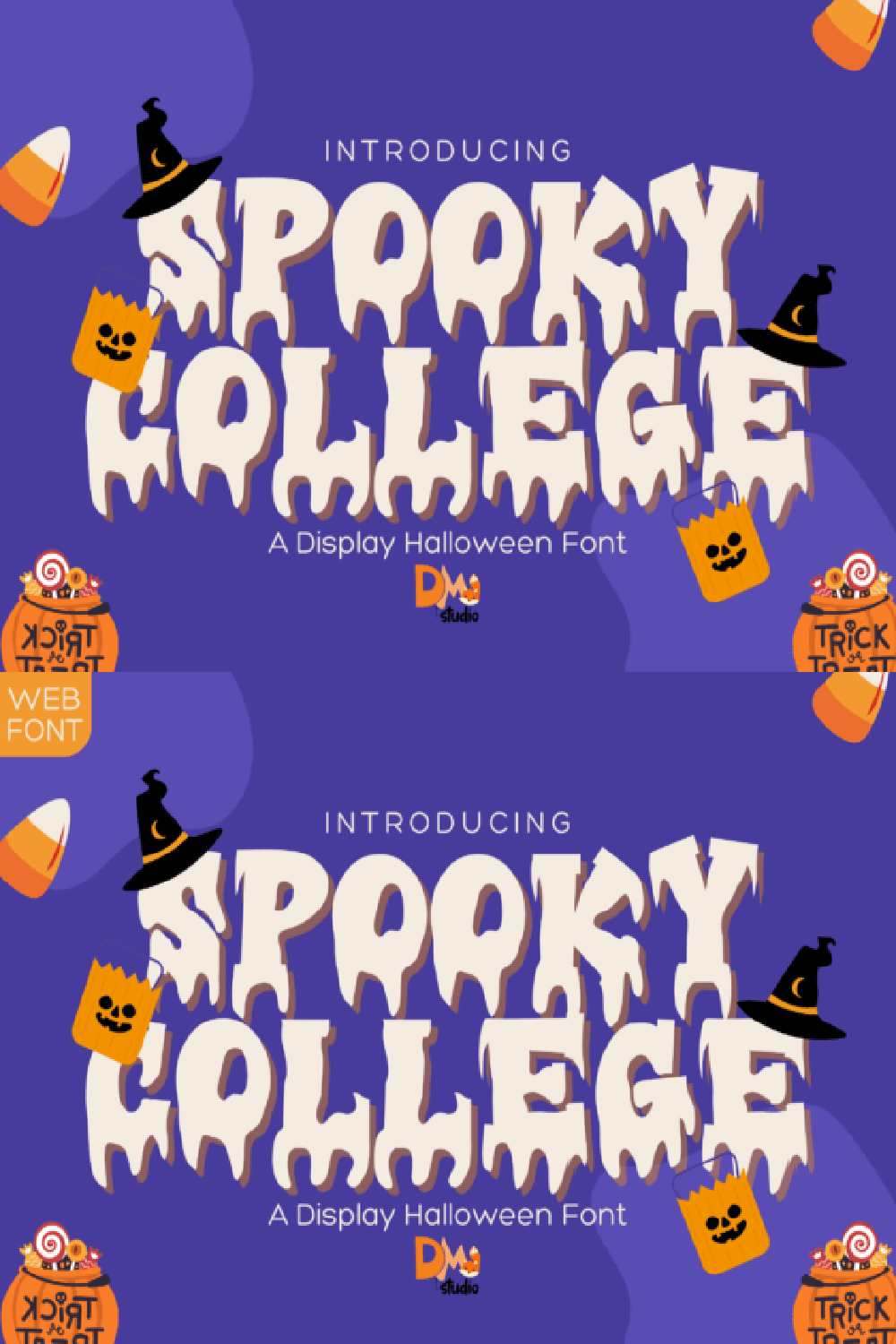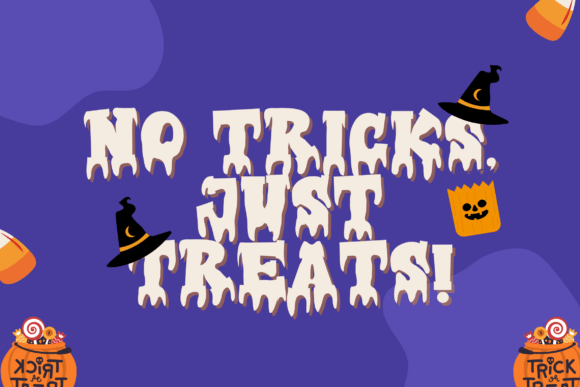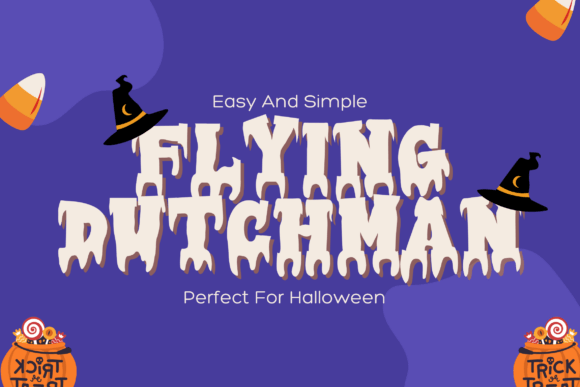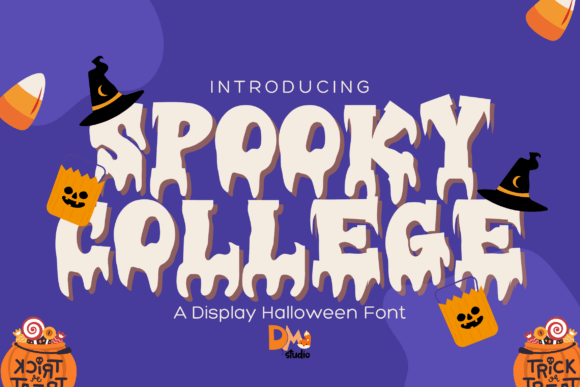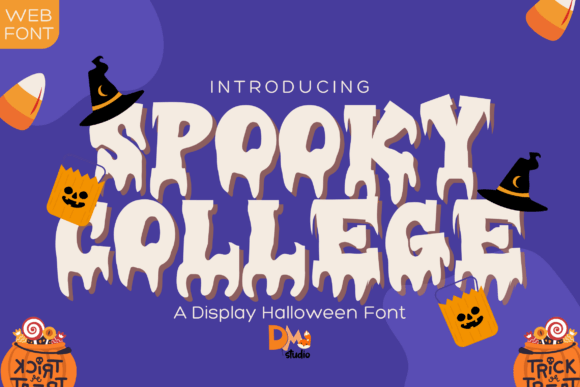
Spooky College Font
About the Spooky College Font
The Spooky College Font offers a perfect balance of form and function for your design needs. Evoking a chilling blend of academia and the occult, Spooky College Font is a spine-tingling, collegiate-style typography with an otherworldly essence. This typeface expertly merges the timeless appeal of varsity lettering with eerie Halloween-infused elements, making it the ideal choice for horror-themed sports insignias, unnerving educational placards, spooktacular party invitations, and goosebump-inducing merchandise. Crafted for those who seek to add a touch of the spectral to the everyday, the Spooky College Font lends a potent, hair-raising elegance to your creative projects, whether they pertain to uncanny championships, macabre events, or gothic university gear.